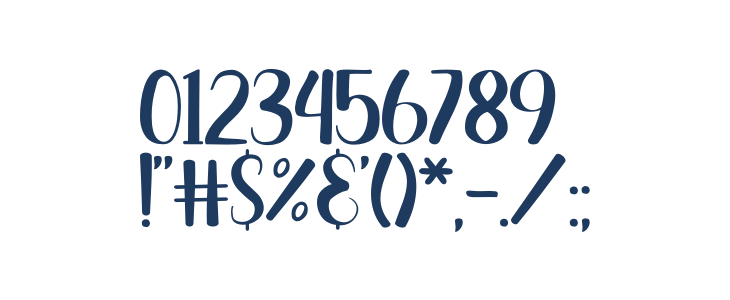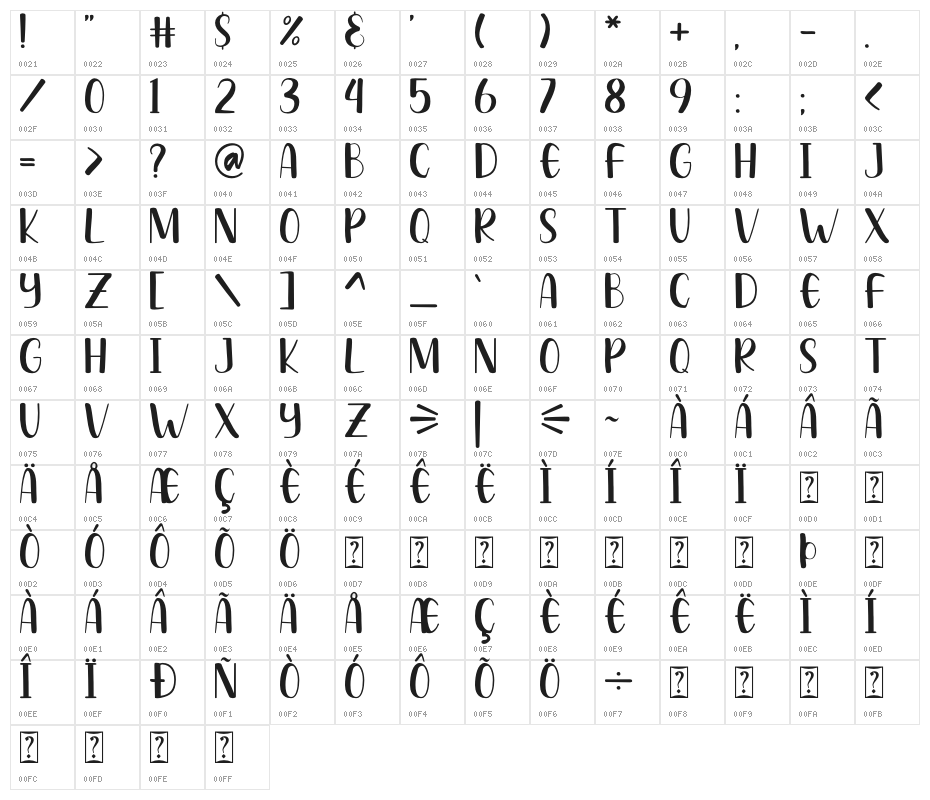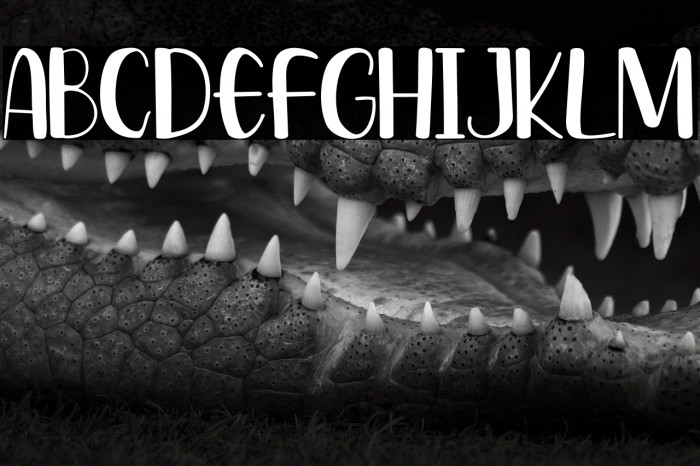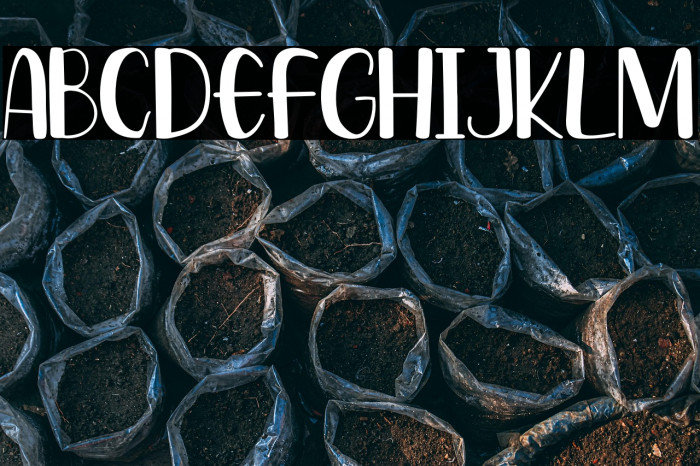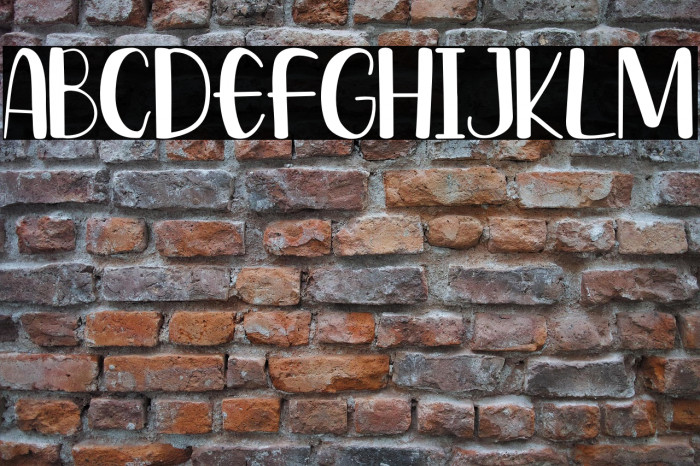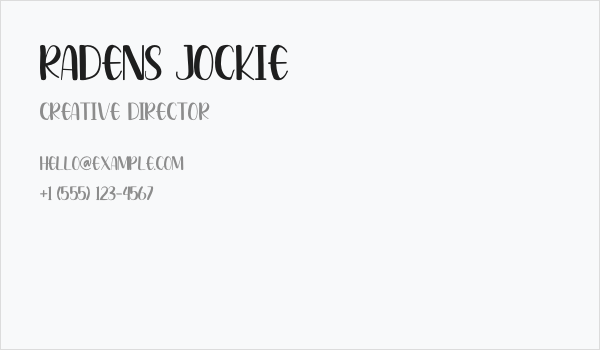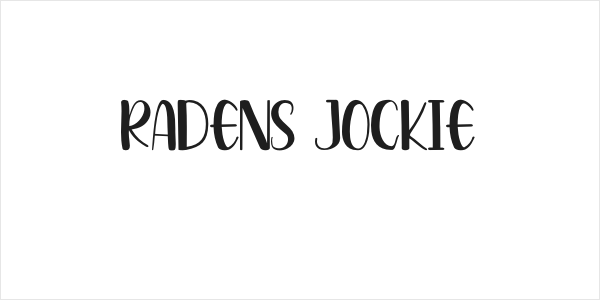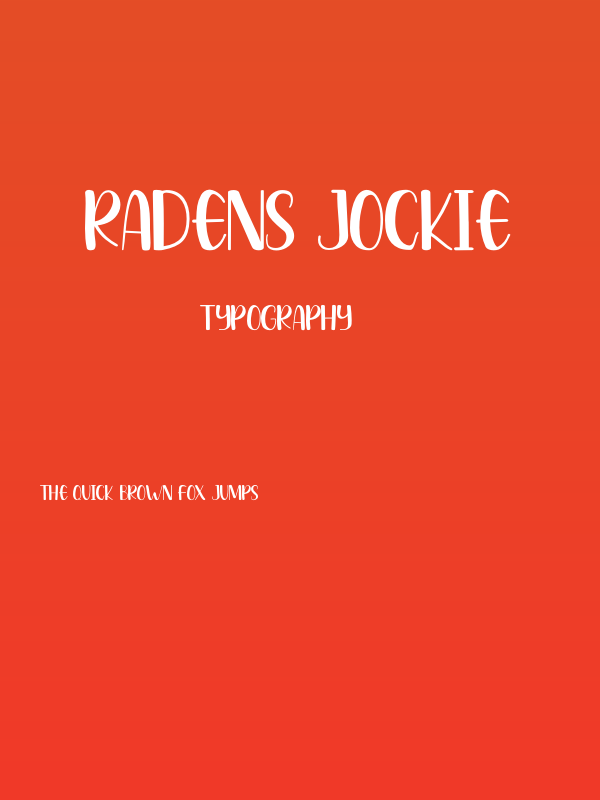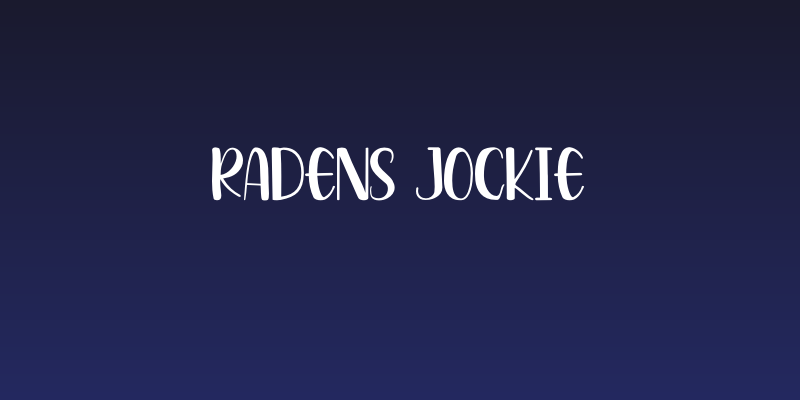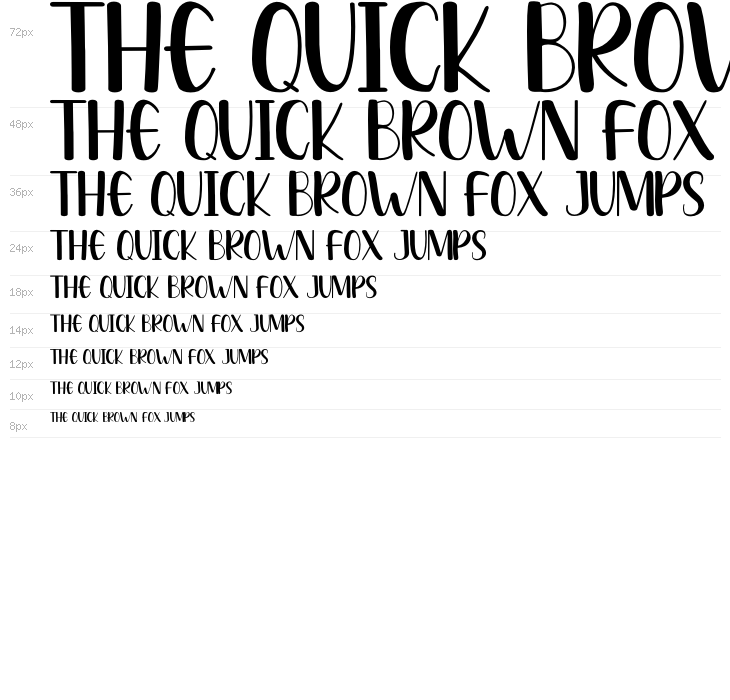
Radens Jockie Font
Radens Jockie Description
This font features a playful and bold handwritten style, characterized by its thick strokes and slightly uneven letterforms that give it a casual and friendly appearance. The uppercase and lowercase letters maintain a consistent height, while the numbers and special characters complement the overall design with their rounded and approachable shapes. The font's unique charm lies in its imperfect lines and whimsical curves, making it stand out in any design. Its versatility allows it to be used in various creative projects, adding a touch of personality and warmth.